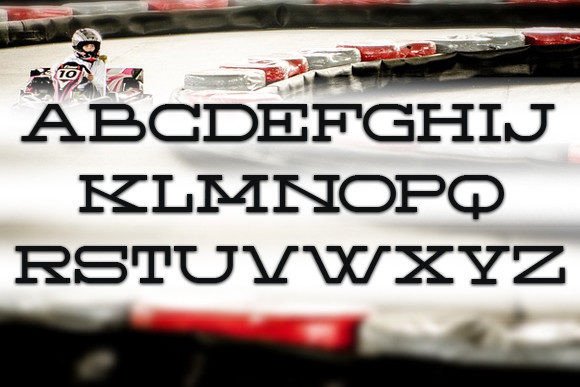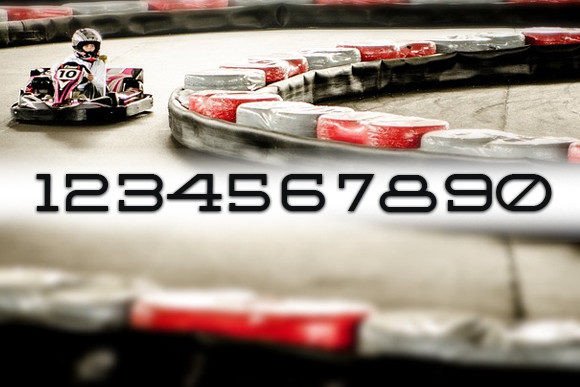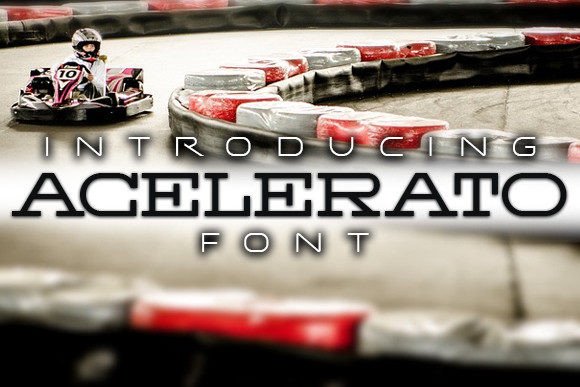
The Designer’s Delight: Acelerato Font
I’ll never forget the time I was working on a project for a trendy coffee shop. My client wanted a bold, eye-catching poster that would make their brand stand out. I spent hours scrolling through font libraries, but nothing seemed quite right. That’s when I stumbled upon Acelerato – a superb slab serif typeface that instantly elevated my design game. ✨
So, what makes Acelerato so special? Let’s dive into the good stuff and a few quirks I’ve discovered.
- ✅ Modern and Elegant Look: Acelerato brings a fresh, contemporary feel to any design project.
- ✅ Versatility: This font works beautifully on posters, flyers, banners, and prints – making it a fantastic addition to any design toolkit.
- ✅ Excellent Legibility: The slab serif design ensures that your text remains clear and readable, even at smaller sizes.
While Acelerato is an amazing font, there are a few things to keep in mind: 🤔
- ⚠️ Not Ideal for Body Text: Due to its elegant, attention-grabbing nature, Acelerato might not be the best choice for lengthy body text.
The Story Behind Acelerato
Rumor has it that Acelerato was inspired by the geometric shapes of urban landscapes. Its designer aimed to create a font that embodies modernity, elegance, and a touch of industrial chic. While the exact story might be fictional, one thing is clear: Acelerato has captured the hearts of designers worldwide with its stunning slab serif design.
Q: Is Acelerato suitable for body text?
A: While Acelerato is beautiful, it’s primarily designed for headlines and titles. For body text, consider a font with better readability and flow.
Q: Does Acelerato support OpenType features?
A: Yes, Acelerato comes with OpenType features, including stylistic alternates and glyphs. Experiment with these in compatible design software for unique effects.